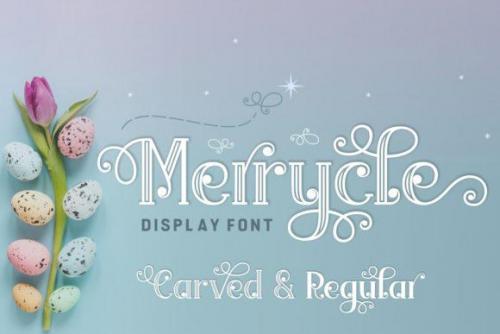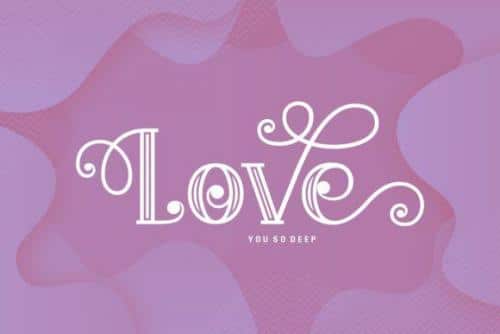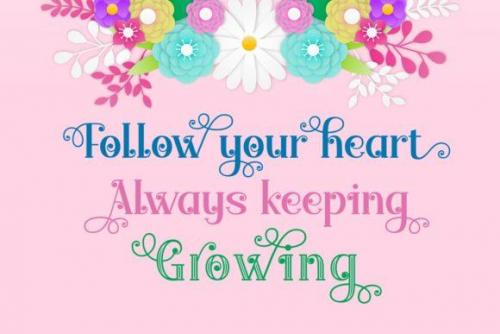
Merrycle will instantly add a magical charm to your next design – it comes in two variations, regular and carved giving you an extra degree of versatility. Perfect for enchanting or romantic designs.